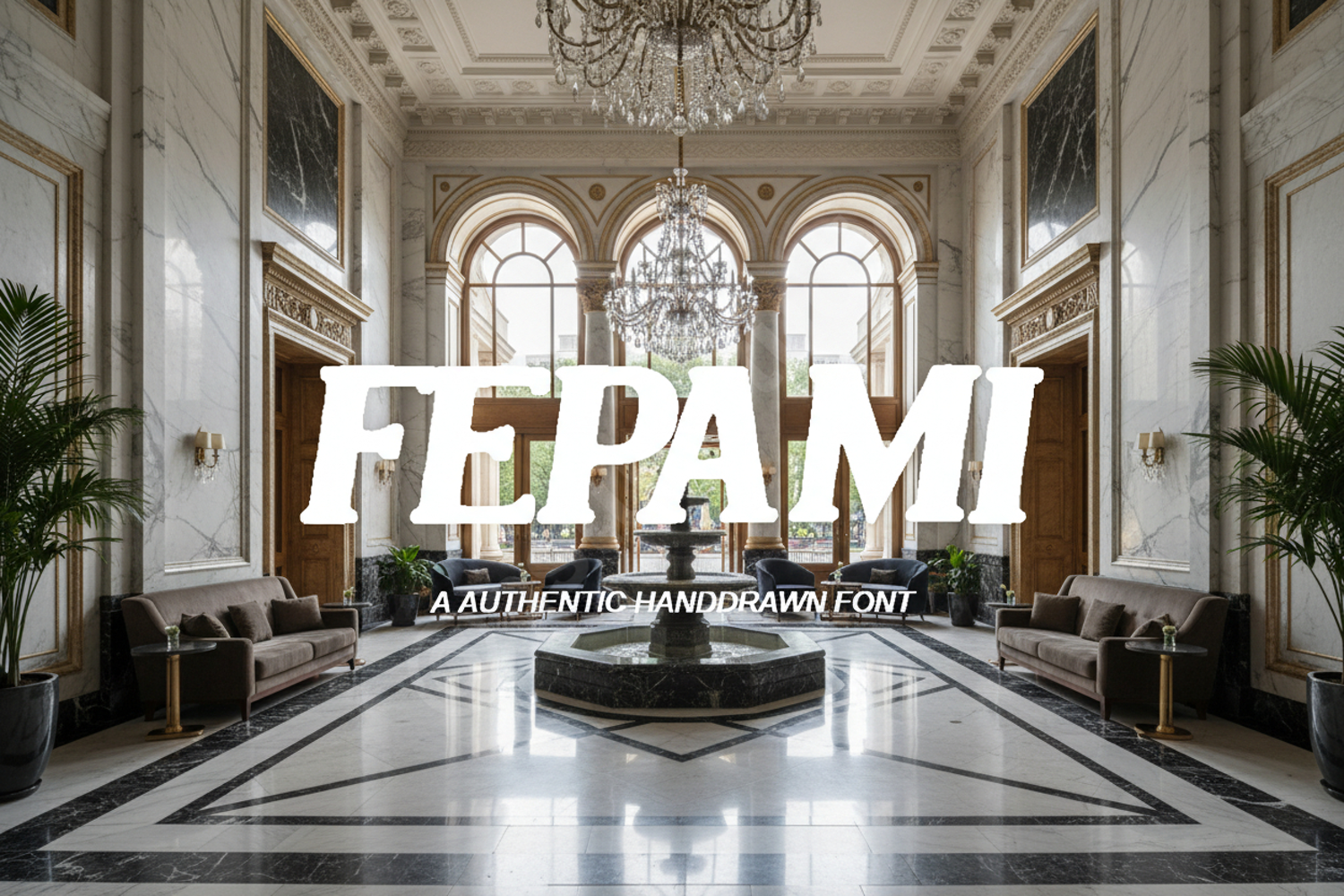
Fepami - Modern Minimalist Sans Serif Typeface
Fepami
Fepami is a premium sans serif font that embodies modern elegance and minimalist design. Crafted with precision, this typeface offers exceptional legibility and a sophisticated aesthetic that elevates any creative project. Whether you are building a brand from scratch or refining an existing layout, Fepami provides the professional edge you need.
- Full Uppercase and Lowercase Character Set
- Numerals and Standard Punctuation
- Extensive Multilingual Support
- Clean and Precise Kerning